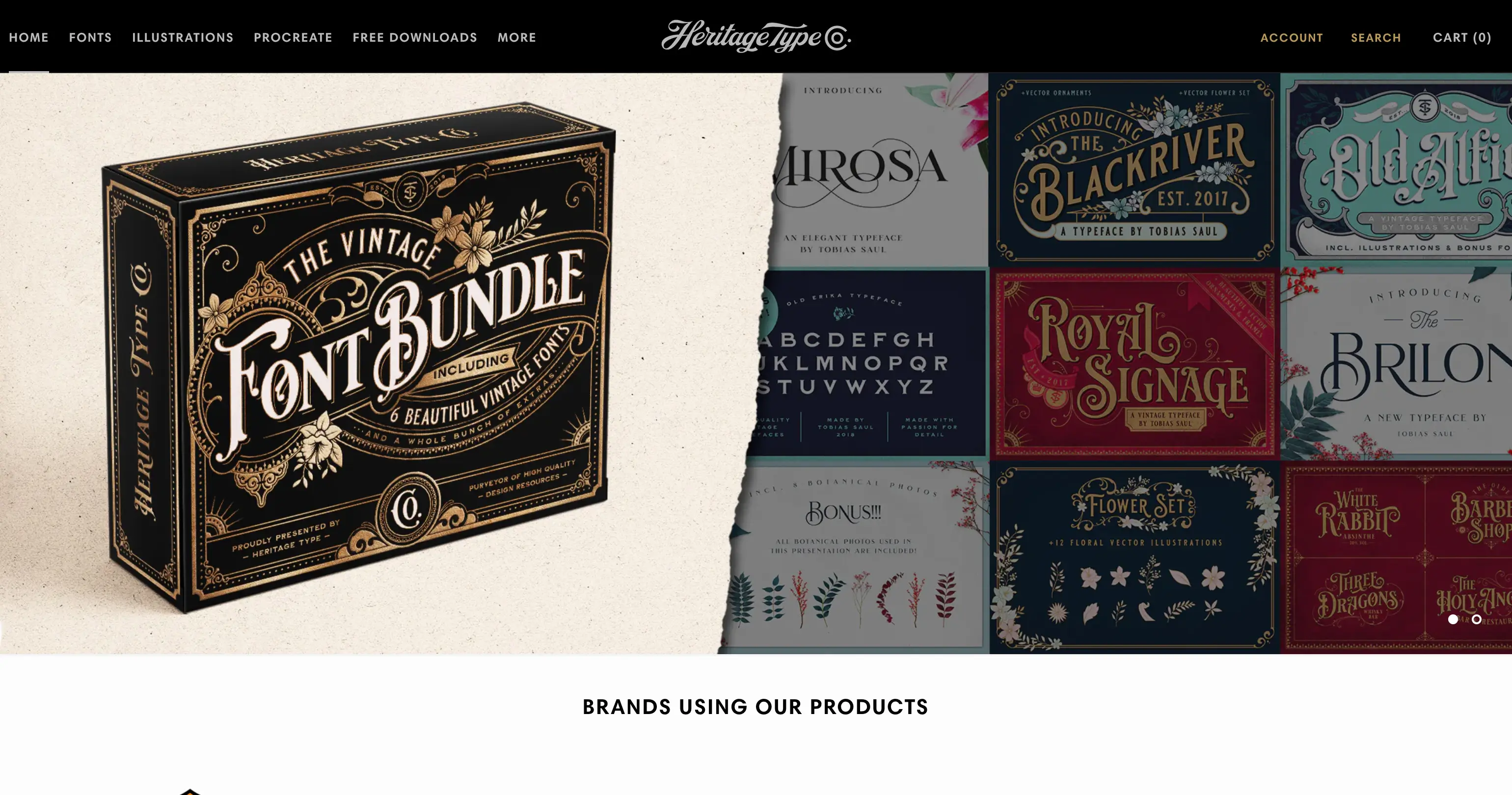
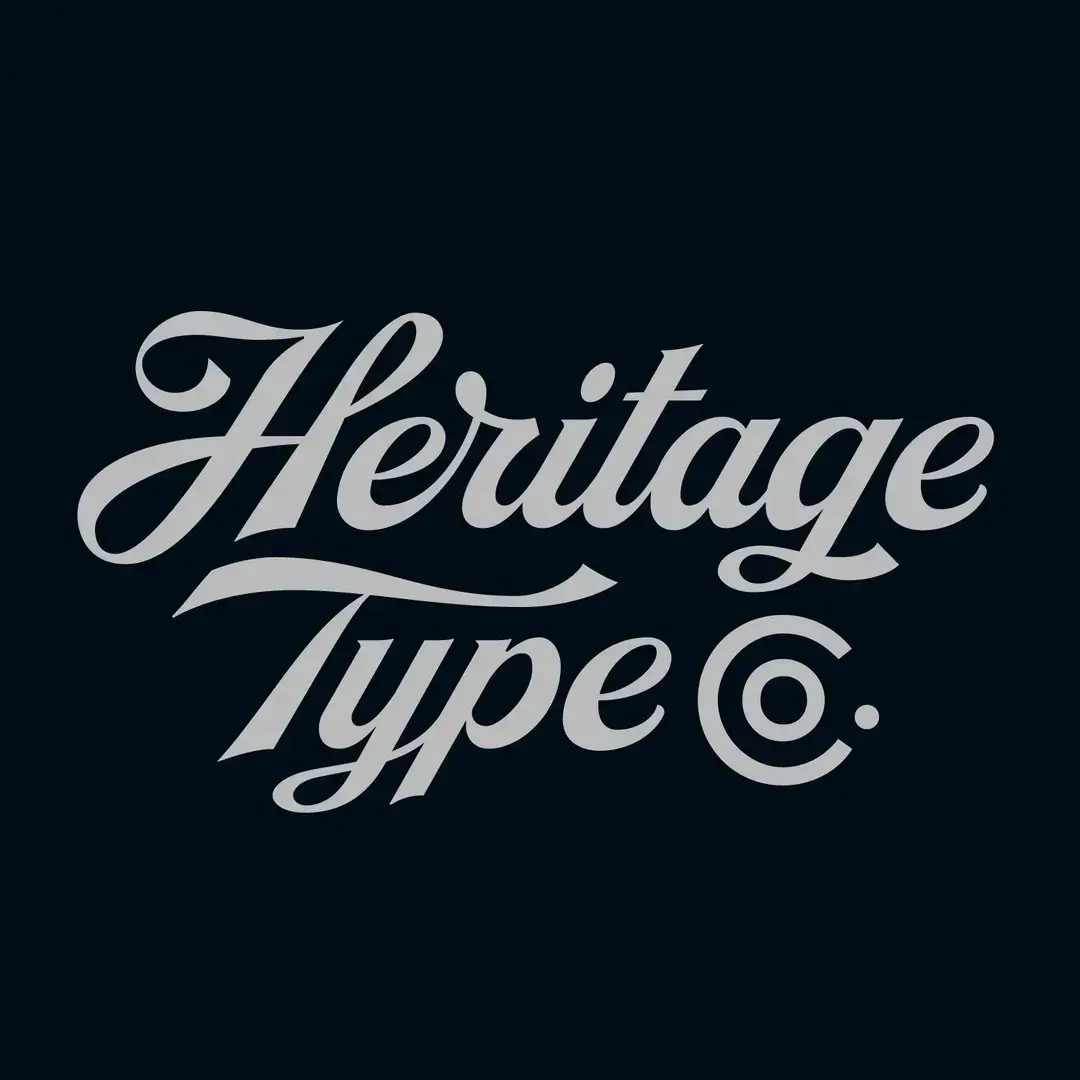
Heritage Type Co.
Offers high-quality vintage fonts with artistic craftsmanship. Ideal for creative projects.
Heritage Type Co. specializes in vintage type design, providing meticulously crafted display fonts that blend traditional design principles with modern flair. Perfect for designers looking to add a unique, vintage touch to their projects with ease.